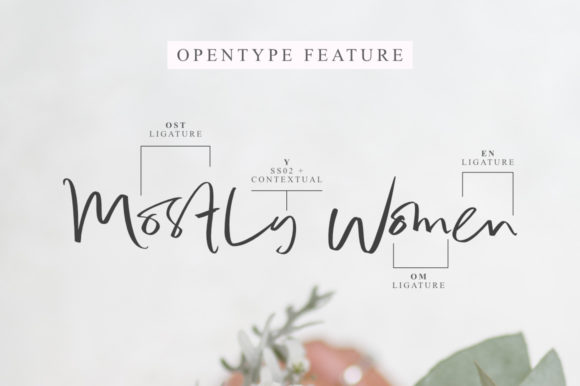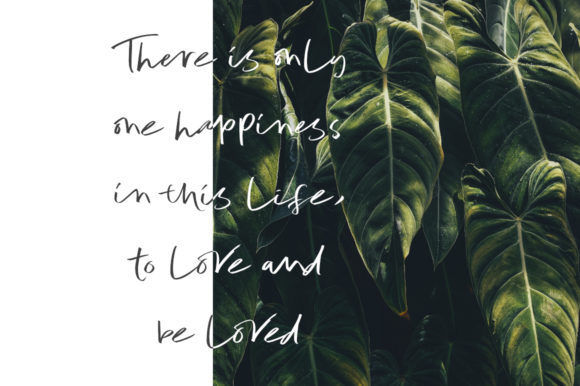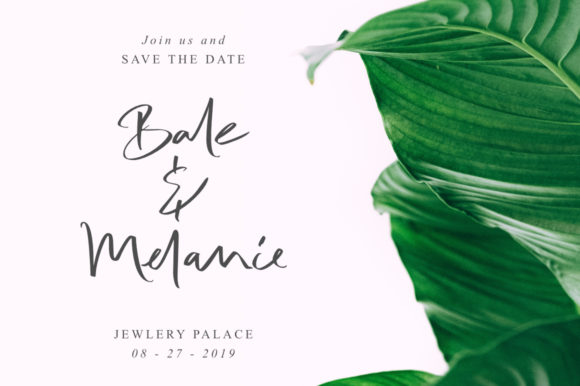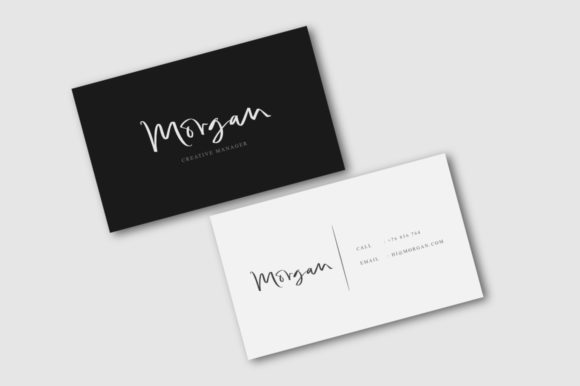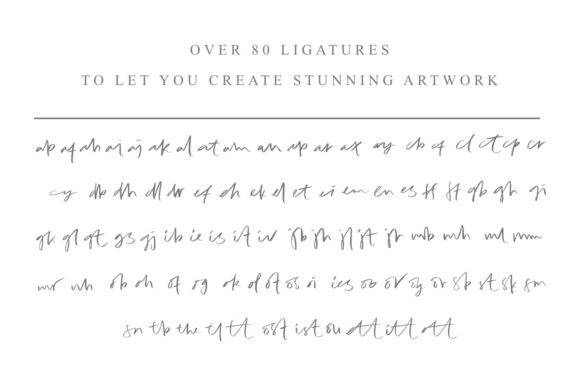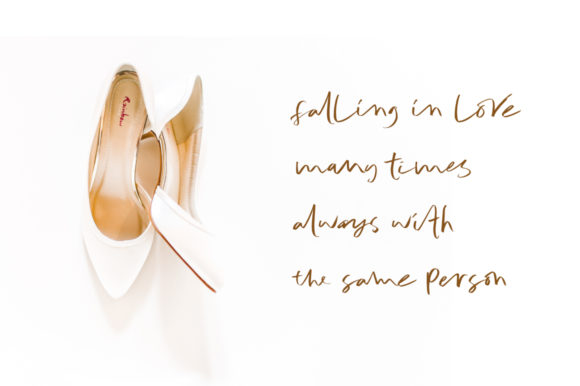
The Bale & Melanie Font: A Beautiful Handwritten Addition to Your Design Arsenal
I’ll never forget the time I was working on a branding project for a luxury candle company. I had spent hours perfecting the logo design, but something was missing. The typeface I had chosen just wasn’t elevating the design to the level I knew it could be. That’s when I stumbled upon the Bale & Melanie font. It was love at first sight! 💫
The Bale & Melanie font is a beautiful handwritten font that’s perfect for every creative project that needs an elegant typeface. Its flowing lines and delicate curves add a touch of sophistication to any design. In this article, I’ll share my honest review of the font, provide a practical guide on how to use it, and explore similar fonts you might love.
- 💫 Elegant and sophisticated: The Bale & Melanie font is perfect for designs that require a touch of luxury.
- ✅ Highly legible: Despite its delicate curves, the font is surprisingly easy to read, even at smaller sizes.
- 🎨 Versatile: The font comes with a range of OpenType features, glyphs, and stylistic alternates, making it suitable for a wide range of design projects.
While the Bale & Melanie font is amazing, there are a few things to keep in mind:
- 🤔 Limited use in very small sizes: While the font is generally legible, it may not be the best choice for very small text sizes (e.g., body text in a book or magazine).
- ⚠️ May not work well with bold or bright colors: The font’s delicate curves can get lost with bold or bright colors. Try pairing it with more muted or pastel colors for best results.
If you love the Bale & Melanie font, you might also enjoy these similar fonts:
- Lobster: A elegant, cursive font with a similar feel to Bale & Melanie. Use it for luxury brands, weddings, or high-end events.
- Pacifico: A beautiful, handwritten font with a more relaxed vibe. Use it for creative projects, blogs, or social media graphics.
- Great Vibes: A modern, script font with a similar elegance to Bale & Melanie. Use it for fashion brands, beauty products, or lifestyle designs.
- Carolyna Pro: A sophisticated, handwritten font with a similar feel to Bale & Melanie. Use it for luxury brands, high-end events, or creative projects.
The Bale & Melanie font was created by a talented designer who wanted to create a font that would evoke the feeling of elegance and sophistication. The designer’s inspiration came from classic calligraphy and handwritten scripts, with a modern twist.
Q: What type of projects is the Bale & Melanie font best suited for?
A: The Bale & Melanie font is perfect for creative projects that require an elegant typeface, such as luxury branding, weddings, high-end events, or fashion designs.
Q: Is the Bale & Melanie font easy to read?
A: Yes, despite its delicate curves, the Bale & Melanie font is surprisingly easy to read, even at smaller sizes.